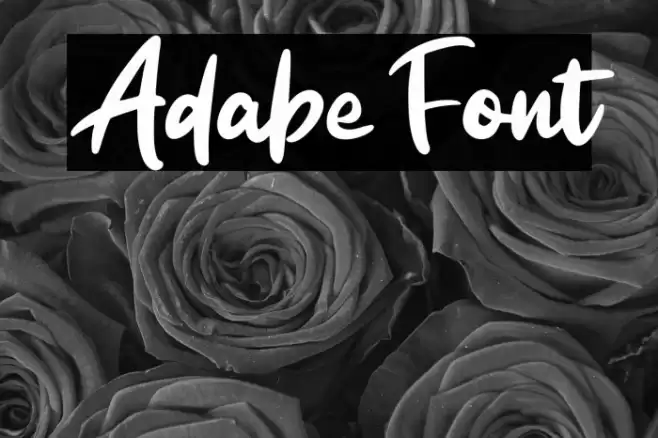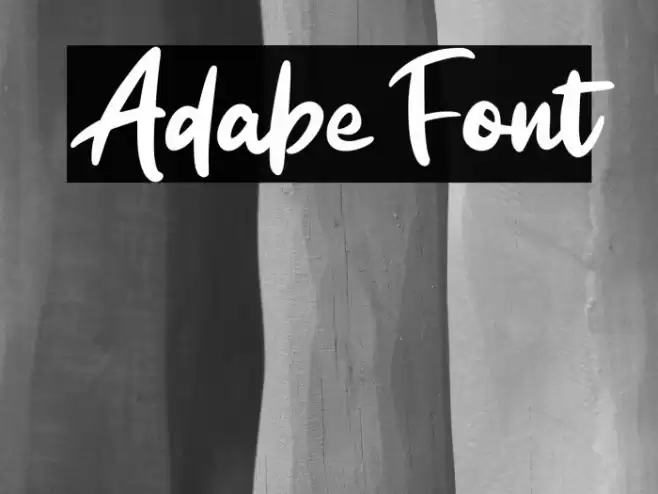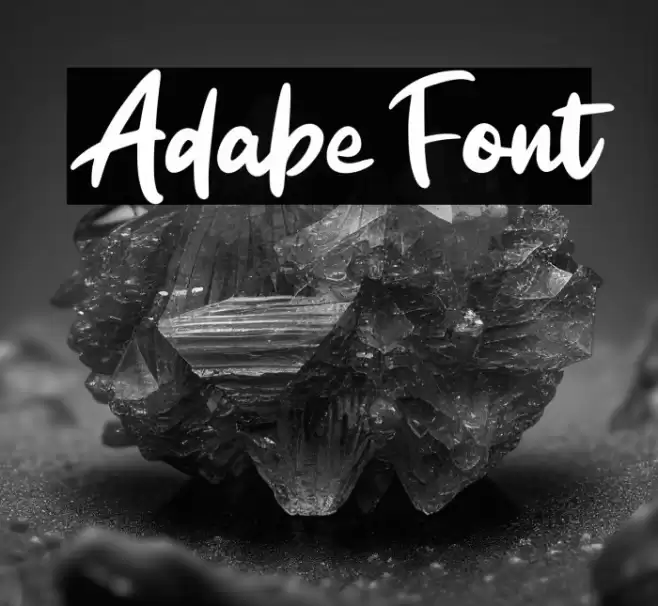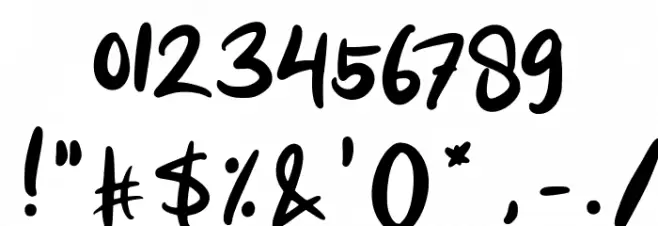
Adabe Font
Adabe Description
This font features a bold and expressive script style, characterized by its flowing, cursive letterforms. The strokes are thick and consistent, giving it a strong presence on the page. The uppercase letters are slightly more angular, while the lowercase letters maintain a smooth, rounded appearance. The numbers and special characters follow the same stylistic cues, ensuring a cohesive look across all characters. The overall design is playful yet sophisticated, making it suitable for a variety of creative applications.
A bold, expressive script font with flowing cursive letterforms from Regular fonts.
- Proposed Projects: Ideal for branding projects, invitations, greeting cards, and social media graphics.
- Use Case: Logos, Headlines, Invitations